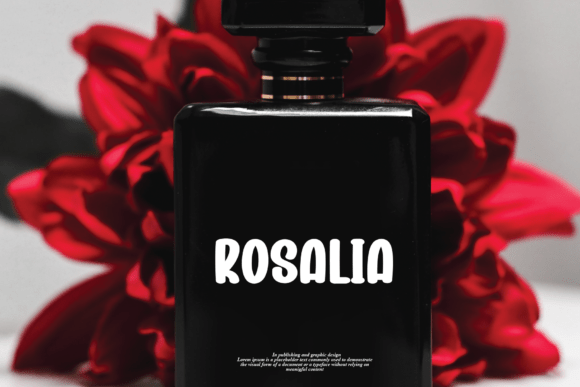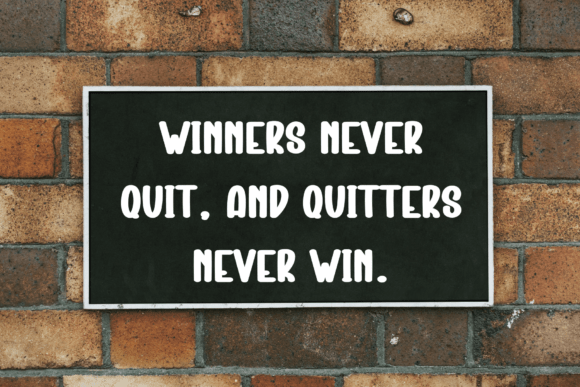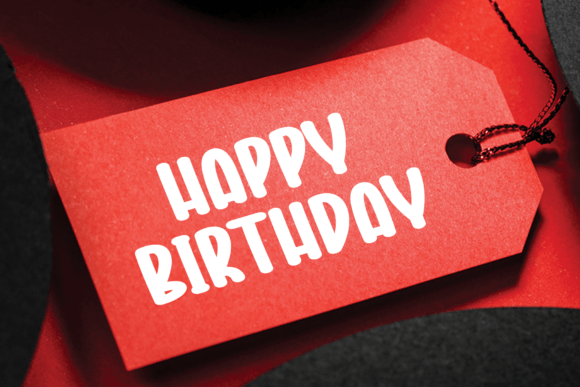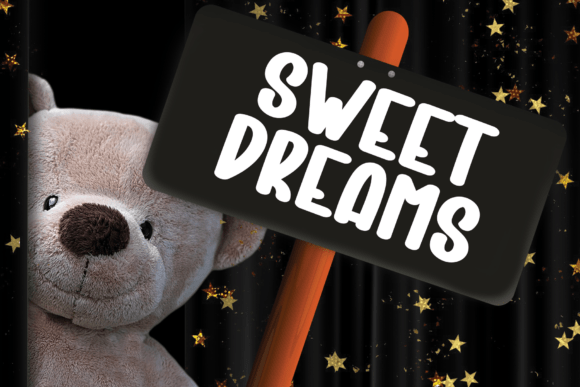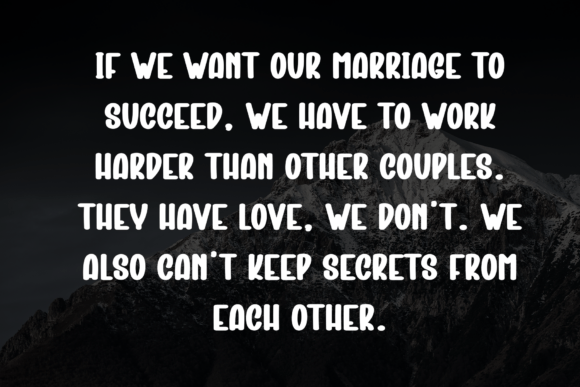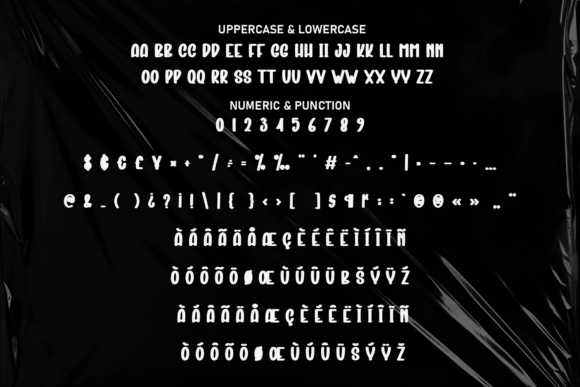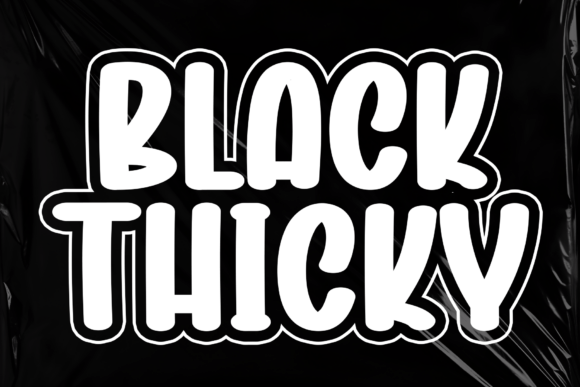
The Ultimate Guide to Black Thicky Font: Adding a Playful Touch to Your Designs
I’ll never forget the time I was working on a project for a kids’ birthday party, and I just couldn’t find the right font to capture the playful vibe I was going for. The client wanted something bold, fun, and eye-catching, but everything I tried seemed either too boring or too over-the-top. That’s when I stumbled upon Black Thicky Font, and it was love at first sight! ✨
Black Thicky is a bold, rounded display font that bursts with playful energy. Perfect for impactful titles, merchandise, and cartoon-style designs, this chunky font grabs attention with its bubbly, friendly character. Ideal for kids’ projects, fun branding, and anything that needs a cheerful pop!
Honest Review: What I Love (and a Few Quirks)
- ✨ Playful and fun: Black Thicky Font is perfect for designs that need a cheerful touch.
- ✅ Easily readable: Despite its bold and chunky style, this font is surprisingly easy to read, even in smaller sizes.
- 💡 Versatile: Use it for titles, headings, or even short paragraphs – Black Thicky Font adapts well to different design needs.
A Few Quirks to Consider
- 🤔 Limited use cases: While Black Thicky Font is amazing for playful designs, it might not be the best fit for more formal or professional projects.
- ⚠️ Overuse can be overwhelming: Use this font sparingly to avoid overwhelming your design – a little goes a long way!
The Designer Inspiration Behind Black Thicky Font
Black Thicky Font was designed with one goal in mind: to create a bold, playful font that would bring joy to designers and their audiences. The designer, inspired by childhood memories of bubbly, colorful typography, set out to craft a font that would evoke a sense of fun and playfulness. The result is a font that’s equal parts bold, friendly, and versatile.
Q: What type of projects is Black Thicky Font best suited for?
A: Black Thicky Font is perfect for kids’ projects, fun branding, merchandise, and cartoon-style designs.
Q: Is Black Thicky Font easy to read?
A: Despite its bold and chunky style, Black Thicky Font is surprisingly easy to read, even in smaller sizes.